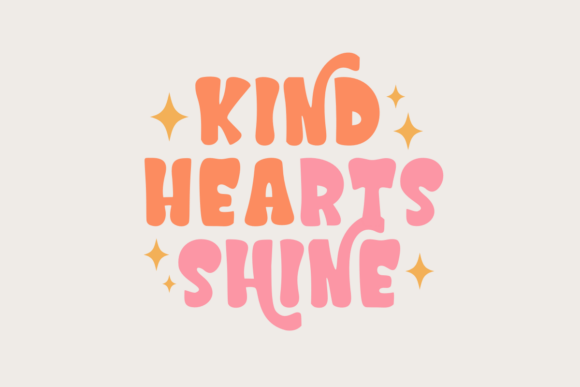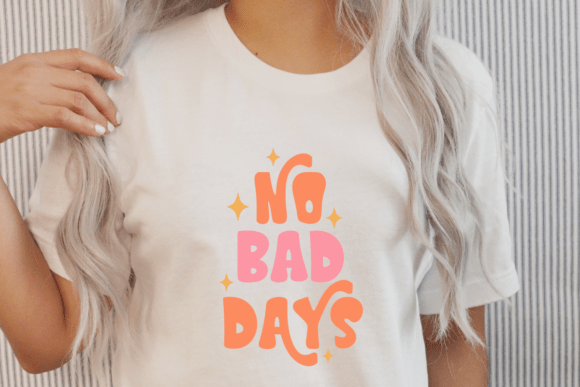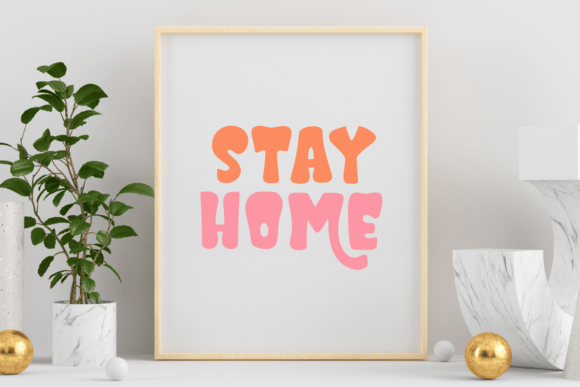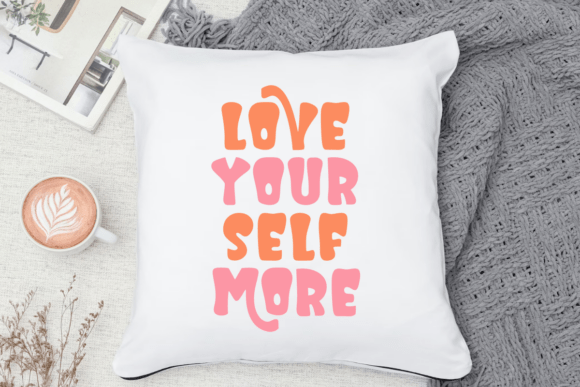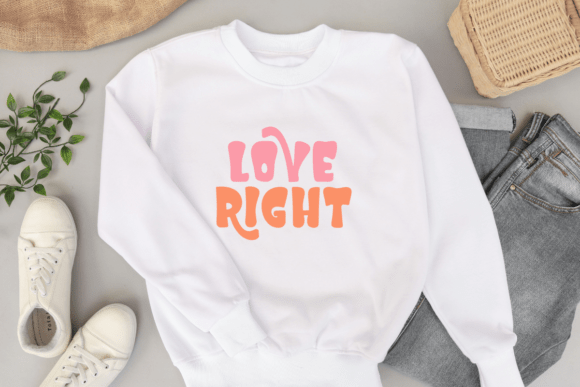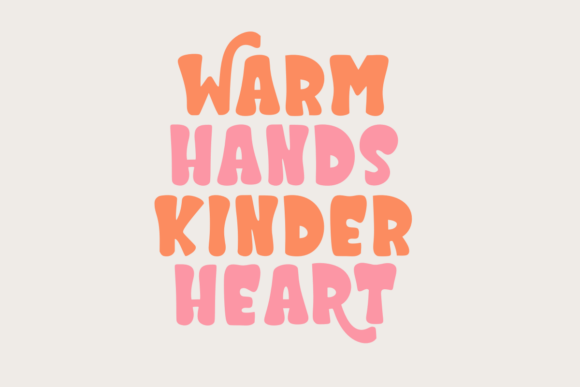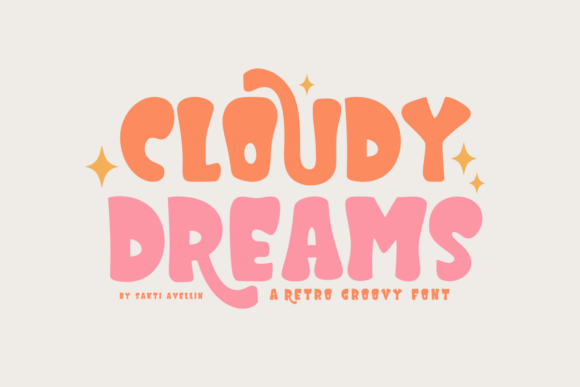
Unleash Your Creative Spirit with Cloudy Dreams Font
Are you a designer, crafter, or creative enthusiast looking for a font that can add a touch of retro charm to your projects? Look no further than Cloudy Dreams, an exquisitely groovy retro font that’s perfect for crafting inspiring quotes, establishing distinct branding, and adding a unique flair to a wide range of merchandise and home décor items.
The Perfectly Styled Cloudy Dreams Font
Cloudy Dreams is a beautifully styled font that’s designed to evoke the nostalgia of the past while still feeling fresh and modern. Its retro charm is perfect for designers and crafters who want to add a touch of vintage flair to their projects. Whether you’re creating inspiring quotes, branding materials, or merchandise, Cloudy Dreams is the perfect choice.
Crafting Inspiring Quotes and Distinct Branding
Cloudy Dreams is ideal for crafting inspiring quotes that will resonate with your audience. Its unique style and retro charm make it perfect for creating motivational posters, social media graphics, and other visual content that will inspire and uplift your followers. Additionally, Cloudy Dreams can help you establish a distinct brand identity that’s both memorable and stylish.
Merchandise and Home Décor Items
Cloudy Dreams is not just limited to digital projects. It’s also perfect for creating a wide range of merchandise and home décor items that will add a touch of personality to your space. Some ideas include:
• T-shirts and hoodies with inspiring quotes or fun designs
• Posters and prints that showcase your favorite Cloudy Dreams designs
• Tote bags and mugs with cute and quirky designs
• Hats and accessories that add a touch of retro charm
• Home décor items like doormats, pillows, and tumblers that reflect your personal style
Why Choose Cloudy Dreams Font?
So why choose Cloudy Dreams font for your next project? Here are just a few reasons:
• Unique Style: Cloudy Dreams has a unique and stylish design that’s sure to stand out from the crowd.
• Retro Charm: Its retro charm is perfect for adding a touch of nostalgia to your projects.
• Versatility: Cloudy Dreams can be used for a wide range of projects, from digital content to merchandise and home décor items.
Tips for Using Cloudy Dreams Font
Here are a few tips for using Cloudy Dreams font in your projects:
• Experiment with Different Sizes and Colors: Don’t be afraid to experiment with different sizes and colors to find the perfect combination for your project.
• Pair with Other Fonts: Cloudy Dreams can be paired with other fonts to create a unique and stylish design.
• Use for Headings and Titles: Cloudy Dreams is perfect for headings and titles, but can also be used for body text and other design elements.
Cloudy Dreams font is a versatile and stylish font that’s perfect for designers, crafters, and creative enthusiasts. Its retro charm and unique style make it ideal for crafting inspiring quotes, establishing distinct branding, and adding a touch of personality to a wide range of merchandise and home décor items. So why wait? Unleash your creative spirit with Cloudy Dreams font and see where your imagination takes you!